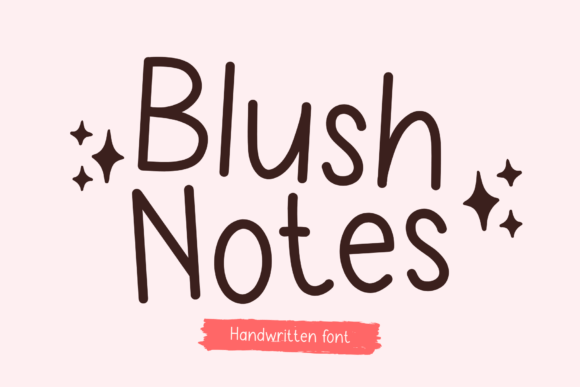
The Blush Notes Font: A Playful and Authentic Addition to Your Designs
Have you ever been in the middle of a design project, and suddenly, you’re stuck on finding the perfect font? I recall a recent experience where I was working on a whimsical greeting card design, and my usual go-to fonts just weren’t cutting it. The design needed a playful, yet authentic feel, and that’s when I stumbled upon the Blush Notes font. It was love at first sight! 💕
Blush Notes is a handwritten font that embodies playfulness and authenticity, making it the perfect choice for all your favorite projects, or even for blog posts, logos, branding, ads, invitations, greeting cards, planners, photo albums, decorations, and much more. In this article, we’ll dive into the world of Blush Notes, exploring its features, how to use it, and what makes it special.
An Honest Review of Blush Notes
What I Love About Blush Notes ✨
- 💖 Playful and authentic feel: Blush Notes has a unique, hand-crafted look that adds a touch of personality to any design.
- ✅ Easy to read: Despite its playful nature, Blush Notes is surprisingly easy to read, making it perfect for body text or headings.
- 🌈 Versatile: This font can be used for a wide range of projects, from digital designs to print materials.
- 👍 Highly customizable: With OpenType features and glyphs, you can customize Blush Notes to fit your design needs.
- ⚠️ Limited use in formal designs: Due to its playful nature, Blush Notes might not be the best fit for formal or professional designs.
- 😐 May not work well in small sizes: As with many handwritten fonts, Blush Notes might become difficult to read in very small sizes.
The Backstory of Blush Notes
Blush Notes was created with the intention of bringing a touch of playfulness and authenticity to the world of design. The font’s creator wanted to craft a font that would be perfect for designs that require a personal touch, such as greeting cards, invitations, and social media graphics. With its unique, hand-crafted look, Blush Notes is sure to add a touch of personality to any design.
Q: What is Blush Notes font?
A: Blush Notes is a handwritten font that embodies playfulness and authenticity, making it perfect for a wide range of design projects.
Q: Is Blush Notes easy to read?
A: Yes, despite its playful nature, Blush Notes is surprisingly easy to read, making it perfect for body text or headings.
Q: Can I customize Blush Notes?
A: Yes, Blush Notes has OpenType features and glyphs that allow you to customize the font to fit your design needs.